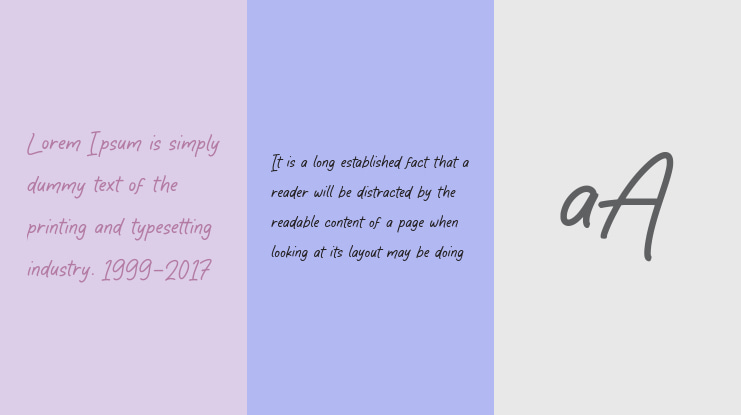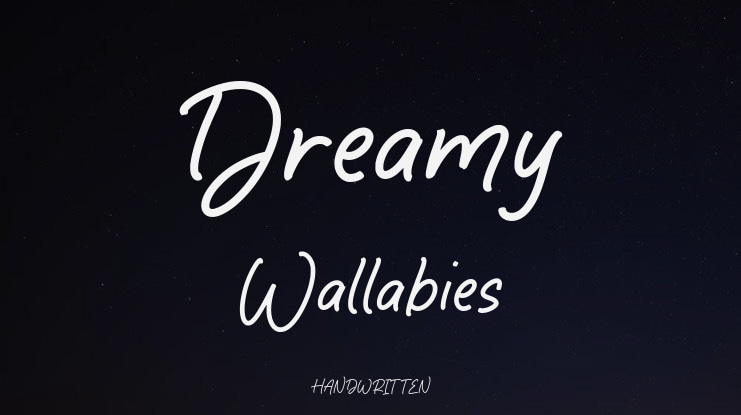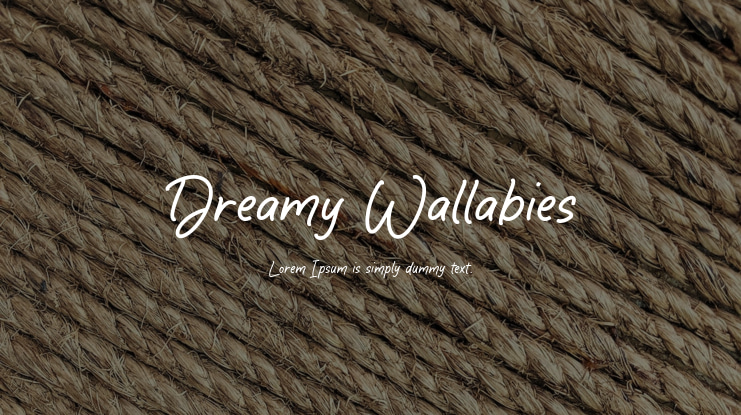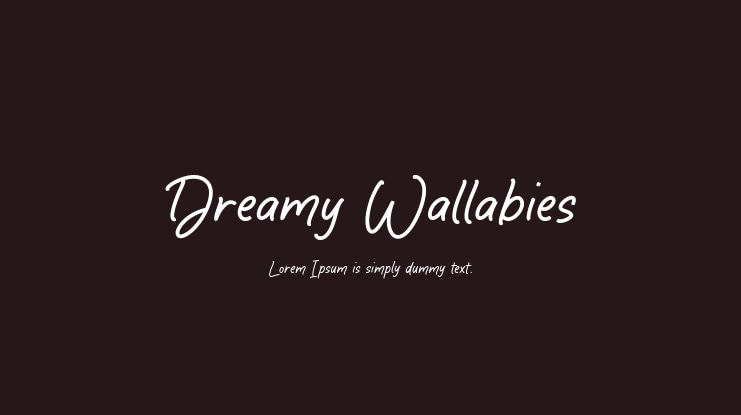
Introducing the Dreamy Wallabies Font by Timurtype Studio!
Dreamy Wallabies is a delightful and charming handwritten font that adds a touch of whimsy and playfulness to your design projects. With its quirky and energetic letterforms, this font brings joy and creativity to any text it is applied to. The hand-drawn style and uneven lines give it an endearing and imperfect look, infusing character into your designs. Whether you're creating inspirational quotes, posters, or social media graphics, the Dreamy Wallabies font is perfect for uplifting and inspiring content. Embrace the fun and lightheartedness of the Dreamy Wallabies handwritten font and watch your creativity soar.
Additionally, the Dreamy Wallabies Font supports multiple languages, enabling you to use it in various contexts.
Key features of the Dreamy Wallabies Font include:
- A complete set of standard alphabets and punctuation marks.